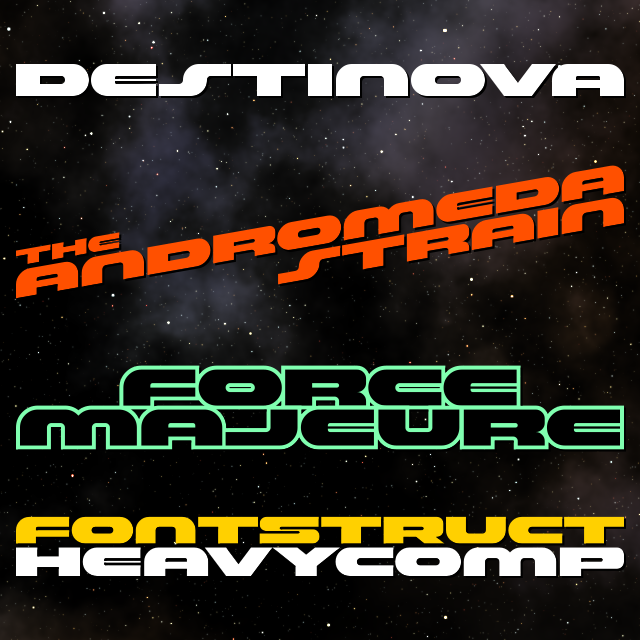
HeavyComp entry
A really nice entry to the Comp, with sci-fi touches and heavy looks.
I can't believe I missed this one, this is pure 70s sci-fi. Nice variation between cases. Great kerning. If this font were a song, it would be full of fat, analog synth bass. One of my favorites, no doubt.
"fat analog bass"
Gotta be the best font description of this week!
Gud one!
Congrats, pal! One of my favourites.